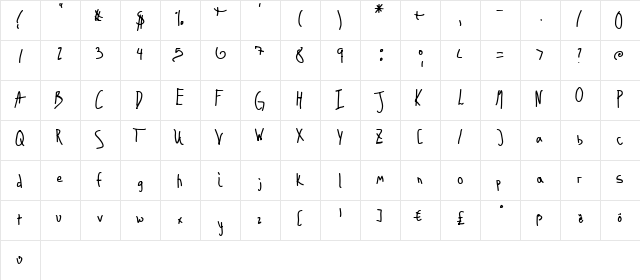
F䬳cher Normal Font Preview
F䬳cher Normal
Design Context for F䬳cher Typeface
F䬳cher is a composed and adaptable typeface that performs quietly and consistently across a wide range of design contexts.